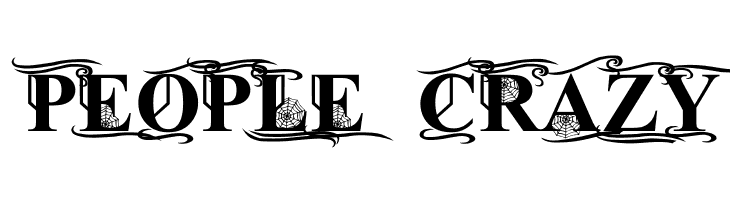
adrenal Font
- Font: adrenal
( Fonts by Koczman Balint - magiquefonts.gportal.hu )
A bold, decorative serif font with ornate detailing and vintage flair.